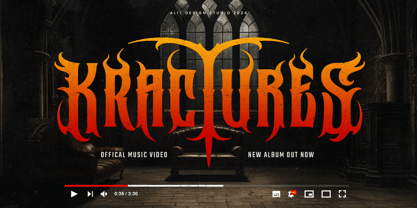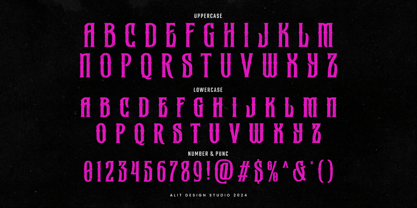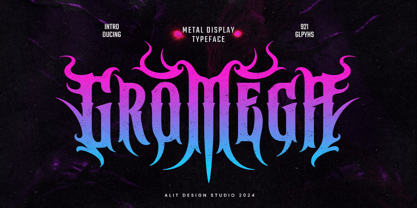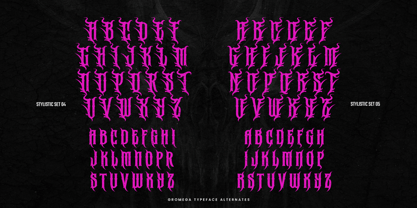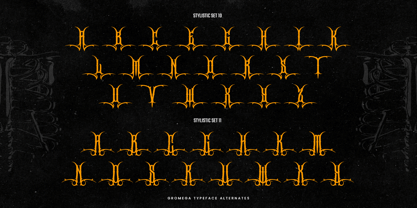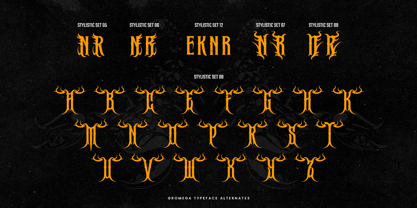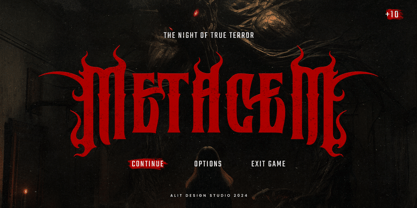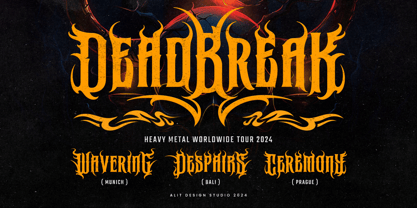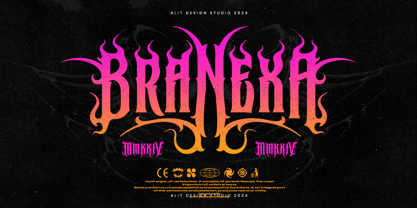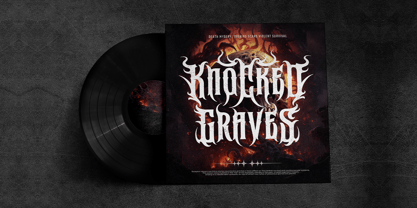
Gromega
La familia tipográfica Gromega fue diseñada por Alit Suarnegara y publicada por Alit Design. Gromega contiene 1 estilos. Más información sobre esta familia
Gromega Typeface - A Fierce Fusion of Black Metal Aesthetics
Gromega Typeface is a bold and electrifying font inspired by the raw intensity of black metal music. Infused with intricate thorn-like details, this typeface embodies the fierce and untamed spirit of the genre, making it the perfect choice for creating dark, dramatic, and visually striking designs.
Key Features:
• Extensive Character Set: With 921 characters, Gromega offers unparalleled versatility, ensuring your designs stand out no matter the context.
• Alternative Styles: Packed with many stylistic alternatives, allowing you to customize your text with unique variations for a personalized touch.
• Dynamic Ligatures: Includes an array of ligatures to create seamless and cohesive lettering combinations.
• Striking Swashes: Enhance your typography with bold swashelements that add flair and dramatism.
• PUA Unicode Support: Fully PUA encoded, granting easy access to all special characters and glyphs across various software programs.
• Multilingual Support: Speak to a global audience with extensive multilingual capabilities, covering a wide range of languages and accents.
Gromega Typeface is your ultimate tool for channeling the dark, chaotic energy of black metal while maintaining a polished and professional edge. Whether you're designing for album covers, merchandise, posters, or immersive branding, Gromega’s thorny intricacies and comprehensive features make it a standout choice for impactful creations.